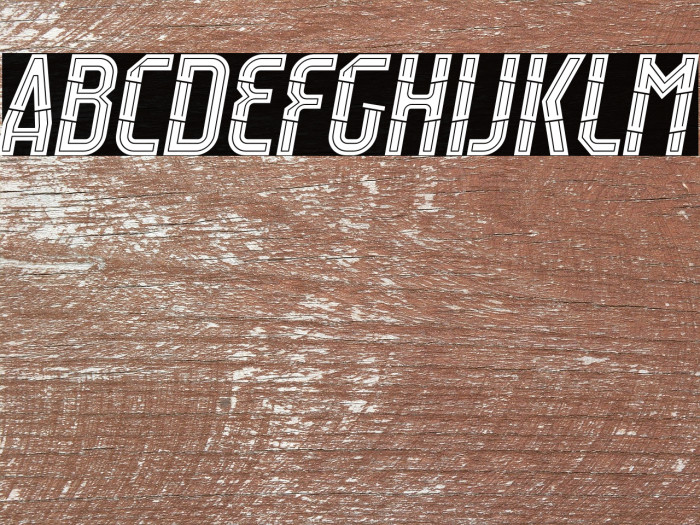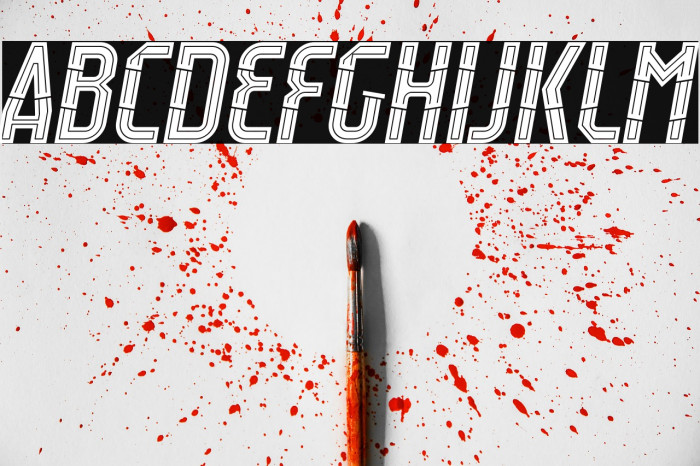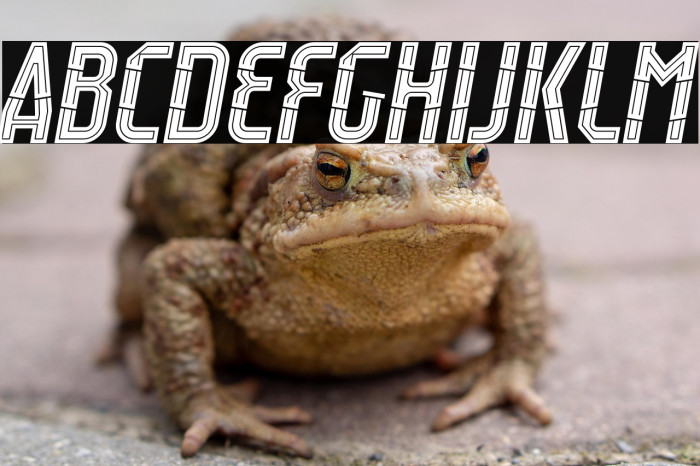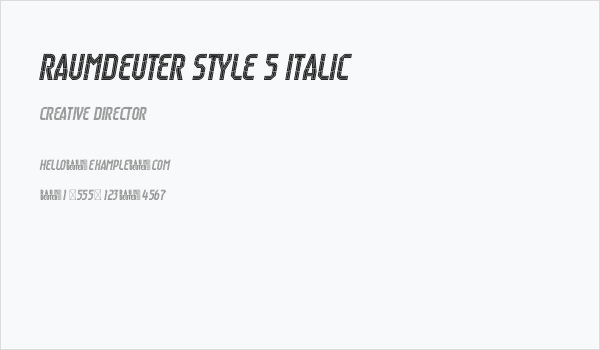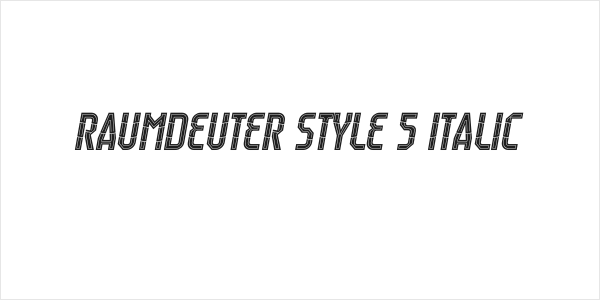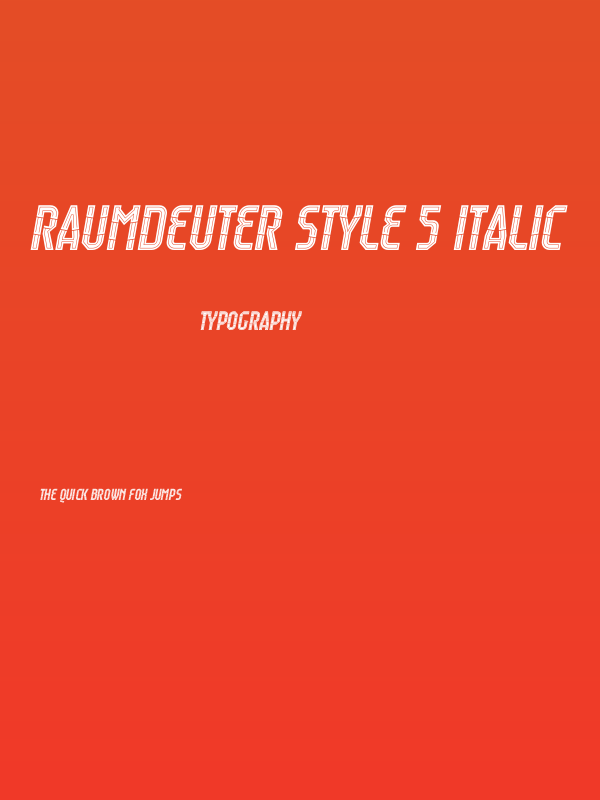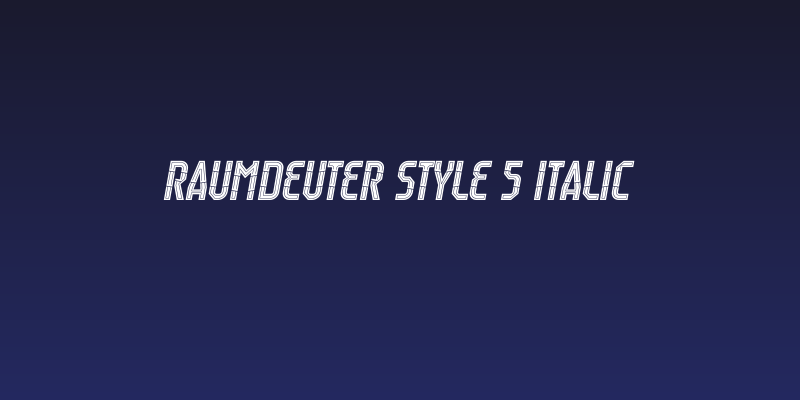
Raumdeuter Style 5 Italic Font
Raumdeuter Style 5 Italic Description
This font features a bold, geometric design with a strong italic slant, giving it a dynamic and modern appearance. The characters are outlined with a double-line effect, creating a sense of depth and dimension. The angular shapes and sharp edges contribute to its futuristic and tech-inspired look. The font maintains consistent stroke thickness throughout, enhancing its bold presence. It is highly legible and stands out due to its unique style, making it suitable for attention-grabbing designs.